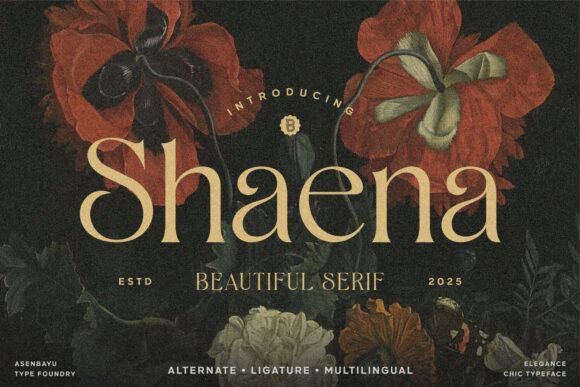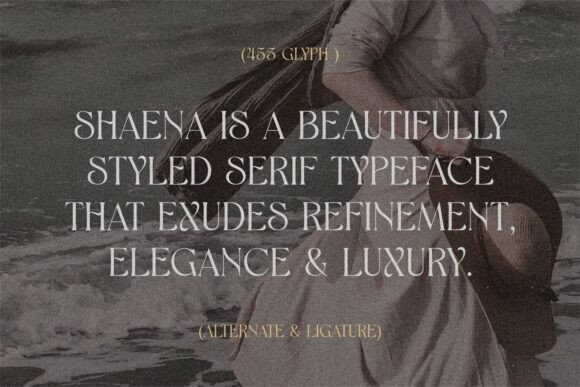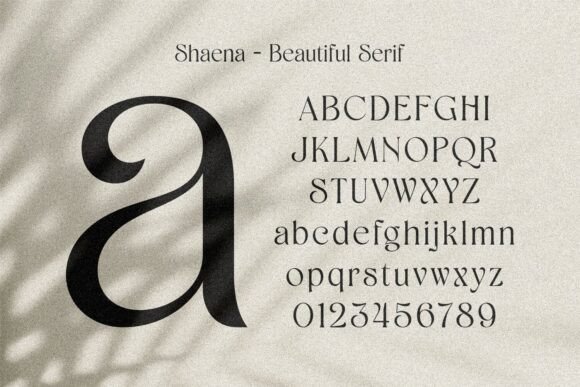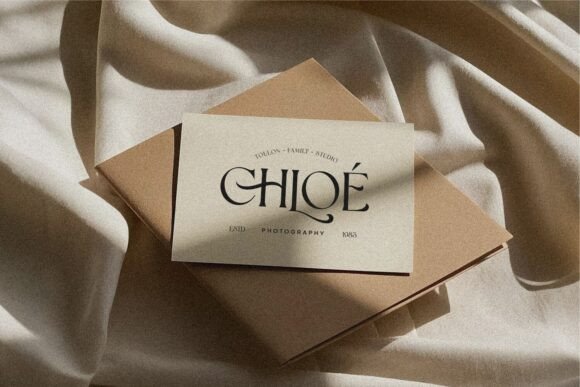
Shaena Font: Elegant Serif Typography for Logos & Wedding Design
About the Shaena Font
The Shaena Font offers a perfect balance of form and function for your design needs. Shaena is a beautifully styled serif typeface that exudes refinement, elegance, and luxury. This font exhibits organic curves that blend seamlessly into sharp serifs. This font is suitable for unique desired logos and branding, fashion designs, weddings, poster designs, and many more.
Shaena Font Usage Examples
Shaena Font Example